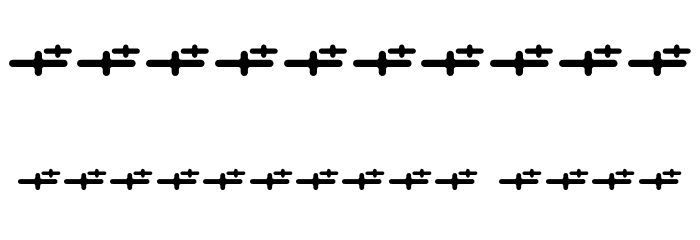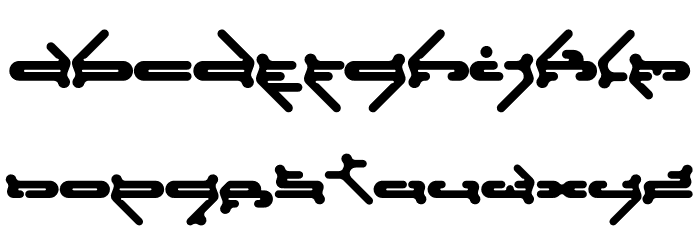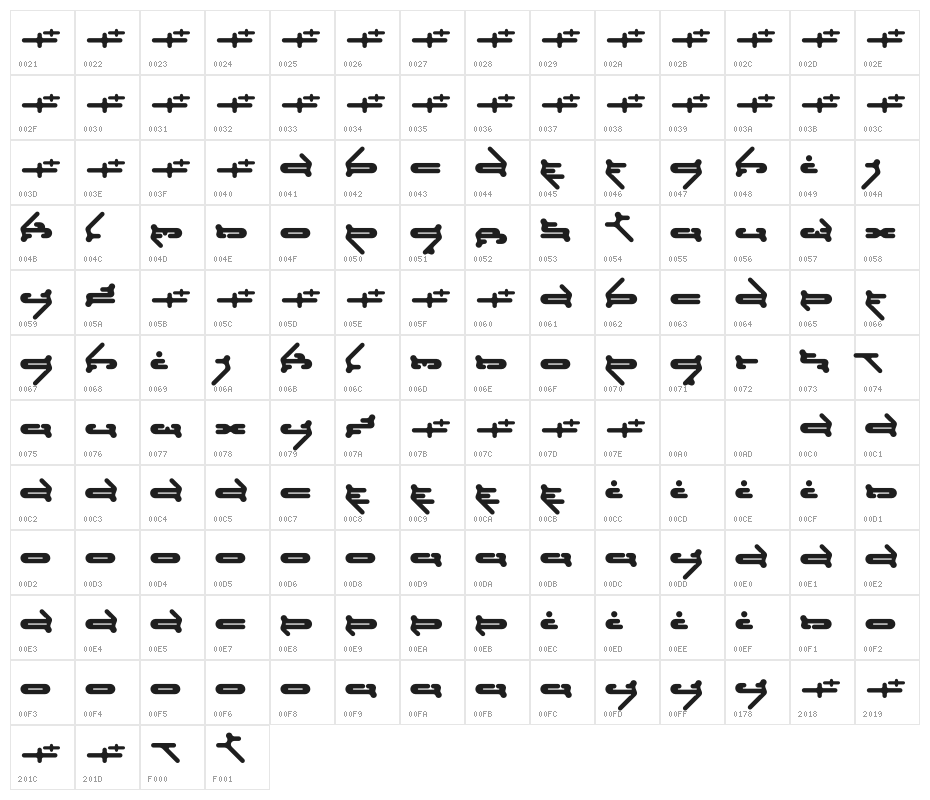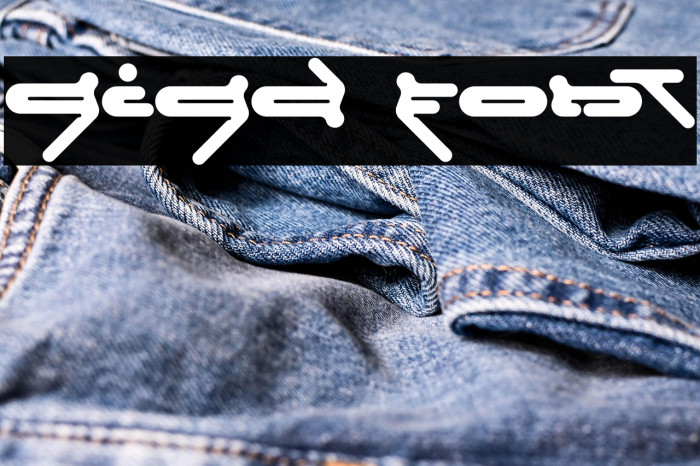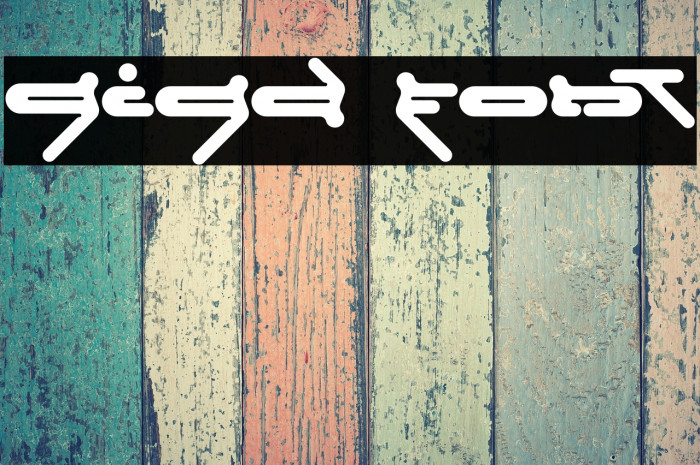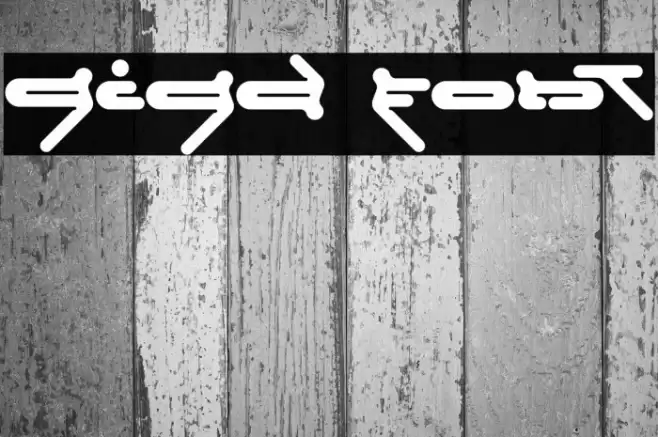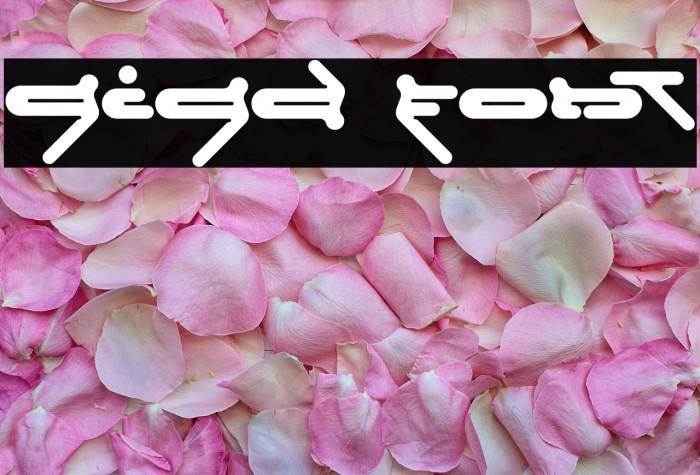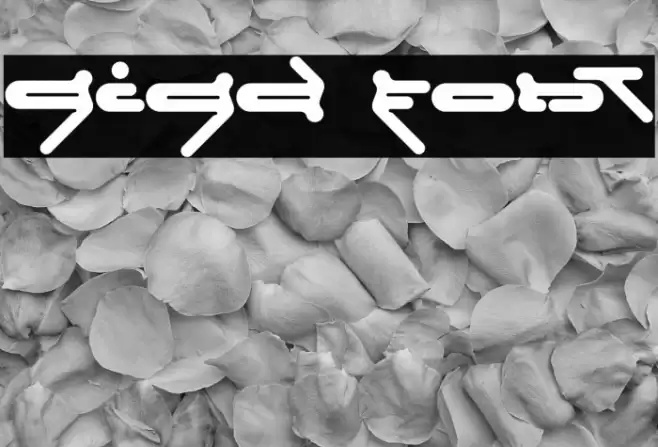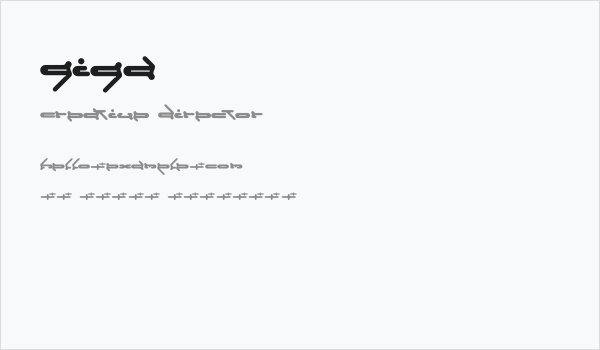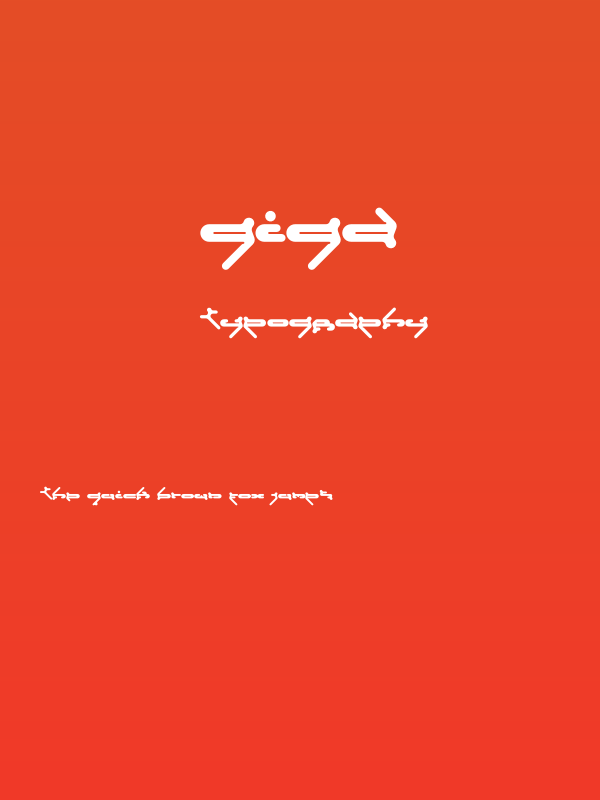
Giga Font
Giga Description
This font exhibits a futuristic and abstract design, characterized by its unique geometric shapes and angular lines. Each character is crafted with a combination of sharp edges and smooth curves, creating a visually striking appearance. The font maintains a consistent thickness throughout, which contributes to its bold presence. Its distinct style makes it stand out, with each letterform appearing almost like a piece of modern art. The spacing between characters is tight, enhancing the compact and cohesive look of the text. This font is ideal for projects that require a modern and avant-garde aesthetic.